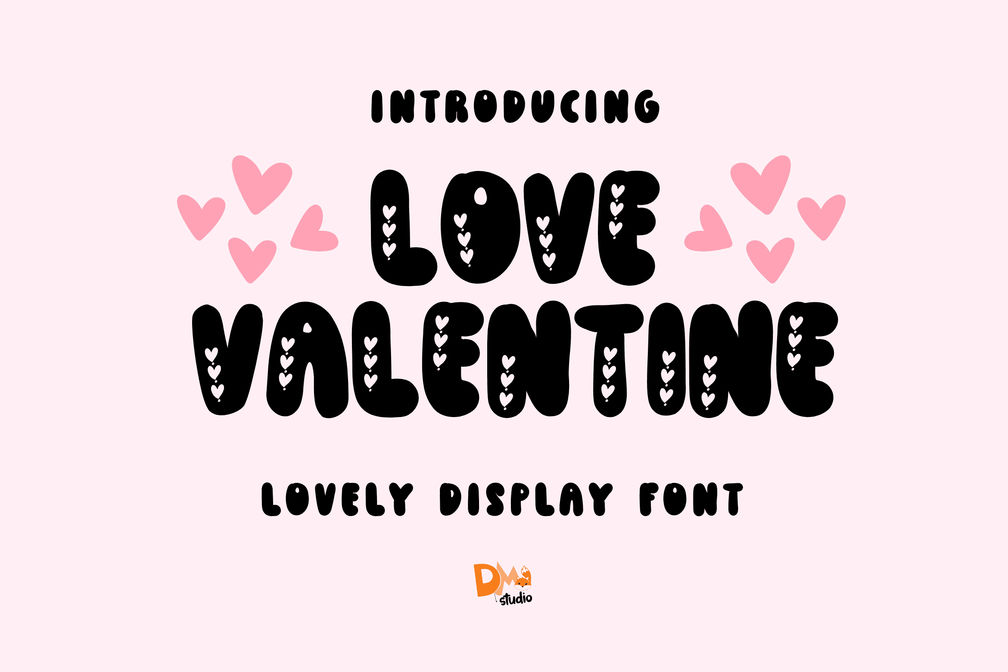
Love Valentine Font
Love Valentine Font is a romantic and elegant typeface that embodies the charm and warmth of Valentine’s Day. With its graceful curves and heart-inspired details, this font is perfect for all things love-related – from wedding invitations and greeting cards to social media posts and personal projects. Designed to bring a sense of passion and sweetness, Love Valentine Font is ideal for anyone looking to add a romantic touch to their designs.
• Romantic and Elegant Design: Beautifully crafted with soft curves and heart-inspired elements.
• Perfect for Love-Themed Projects: Great for Valentine’s Day cards, wedding invitations, love letters, branding, and more.
• Versatile Usage: Suitable for print and digital projects, such as social media graphics, posters, and custom merchandise.
• Uppercase and Lowercase Letters: Provides flexibility and creative options.
• Punctuation and Symbols: Complete character set for versatile use.